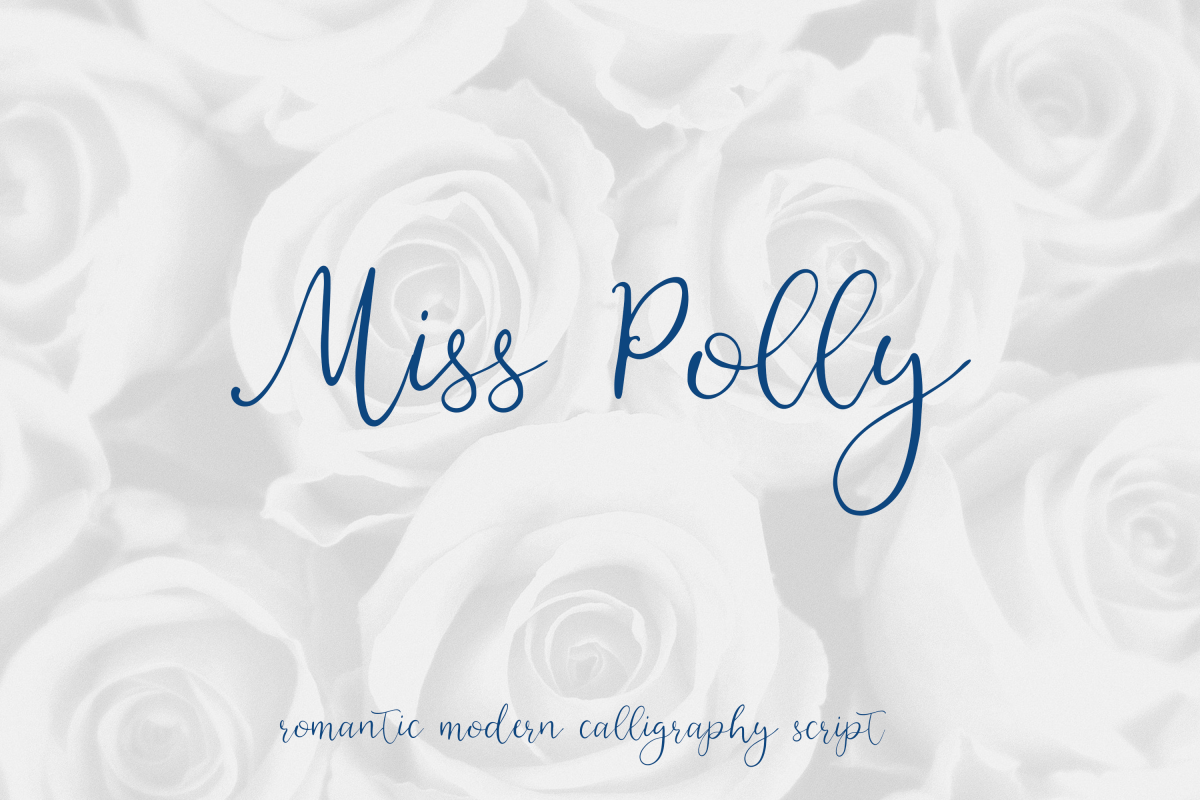
Miss Polly, romantic modern calligraphy script
Miss Polly, romantic modern calligraphy script.  Multilingual support, most European languages, ligatures are available. Ligatures are discretional, so to use them access the Glyph option in Ai, Ps.